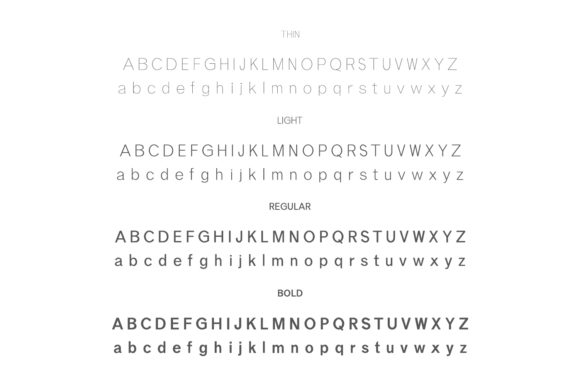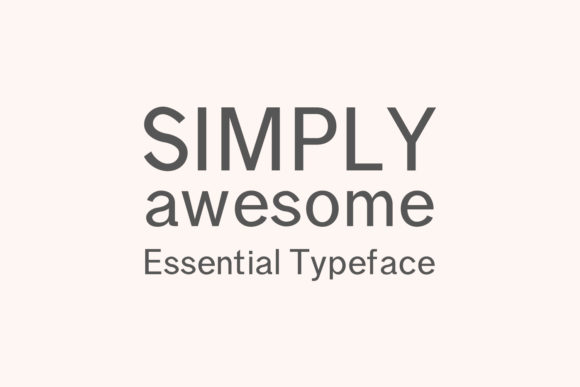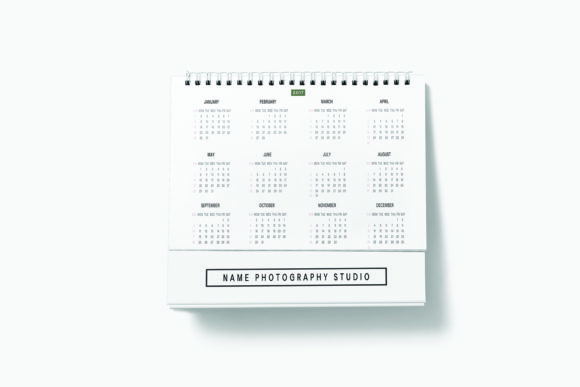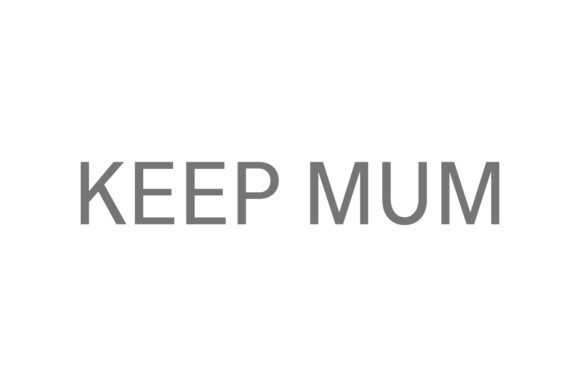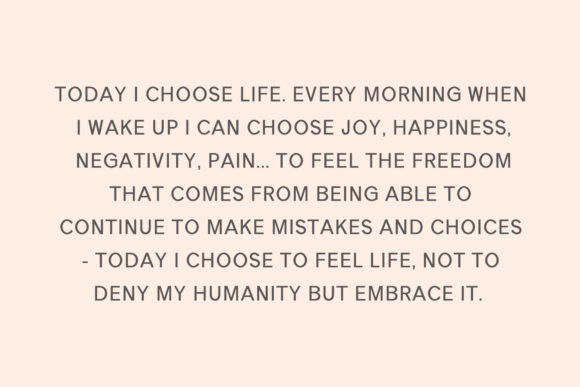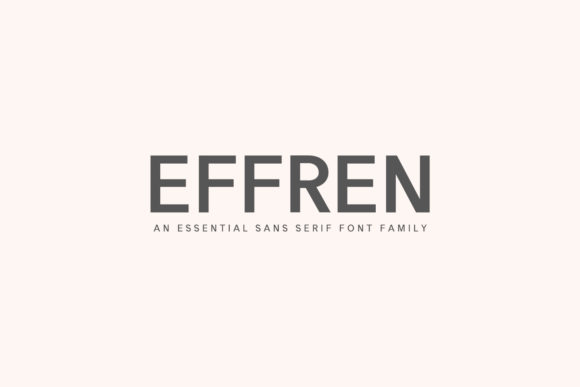
Introducing the Effren Family Font: A Powerful and Versatile Sans Serif Collection
In the world of typography, a well-crafted font can elevate a design from ordinary to extraordinary. For designers and crafters seeking a reliable and visually stunning sans serif font, look no further than the Effren Family Font. This impressive collection of four weights is designed to excel in various contexts, making it an ideal choice for a wide range of projects.
Unleash Your Creativity with the Effren Family Font
The Effren Family Font is a masterfully designed sans serif collection that boasts a powerful and outstanding aesthetic. Its clean lines, precise curves, and carefully considered letterforms come together to create a font that looks beautiful in every context. Whether you’re working on a logo, invitation, text, presentation, magazine, poster, notice, title, name card, web layout, header, branding, wedding, social media, product design, stationery, or advertising project, the Effren Family Font is the perfect companion.
Four Weights for Endless Possibilities
One of the standout features of the Effren Family Font is its comprehensive range of four weights. This versatility allows designers to adapt the font to suit various design requirements, from subtle and elegant to bold and attention-grabbing. The four weights included in the Effren Family Font are:
- Light: Ideal for body text, captions, and other small-scale applications where a subtle touch is desired.
- Regular: A balanced weight suitable for a wide range of uses, from titles and headings to paragraphs and descriptions.
- Bold: Perfect for making a statement, this weight is great for headings, titles, and other prominent design elements.
- Extra Bold: The heaviest weight in the collection, ideal for grabbing attention and adding emphasis to key messages.
Endless Applications for Designers and Crafters
The Effren Family Font’s versatility and aesthetic appeal make it an excellent choice for various design projects. Here are some of the many applications where this font shines:
- Logos and Branding: Create a lasting impression with a custom logo or brand identity that leverages the Effren Family Font’s clean, modern style.
- Invitations and Weddings: Add a touch of sophistication and elegance to your wedding invitations, programs, and other stationery.
- Digital and Print Media: Use the Effren Family Font in magazines, posters, notices, titles, and other print materials, as well as web layouts, headers, and social media graphics.
- Product Design and Packaging: Elevate your product design with a font that communicates quality, style, and attention to detail.
- Advertising and Marketing: Make a bold statement with the Effren Family Font’s heavier weights, perfect for grabbing attention in advertising and marketing materials.
Why Choose the Effren Family Font?
With so many fonts available, why choose the Effren Family Font? Here are a few compelling reasons:
- Unparalleled Versatility: The four included weights provide endless possibilities for design applications.
- Exceptional Legibility: The Effren Family Font’s carefully crafted letterforms ensure clear readability, even at small sizes.
- Timeless Aesthetic: The font’s clean, sans serif design ensures it will remain stylish and relevant for years to come.
In conclusion, the Effren Family Font is an exceptional sans serif collection that offers designers and crafters a powerful, versatile, and beautiful typographic solution. Its four weights, extensive range of applications, and timeless aesthetic make it an excellent addition to any design library. Whether you’re working on a personal project or a client’s, the Effren Family Font is sure to impress.